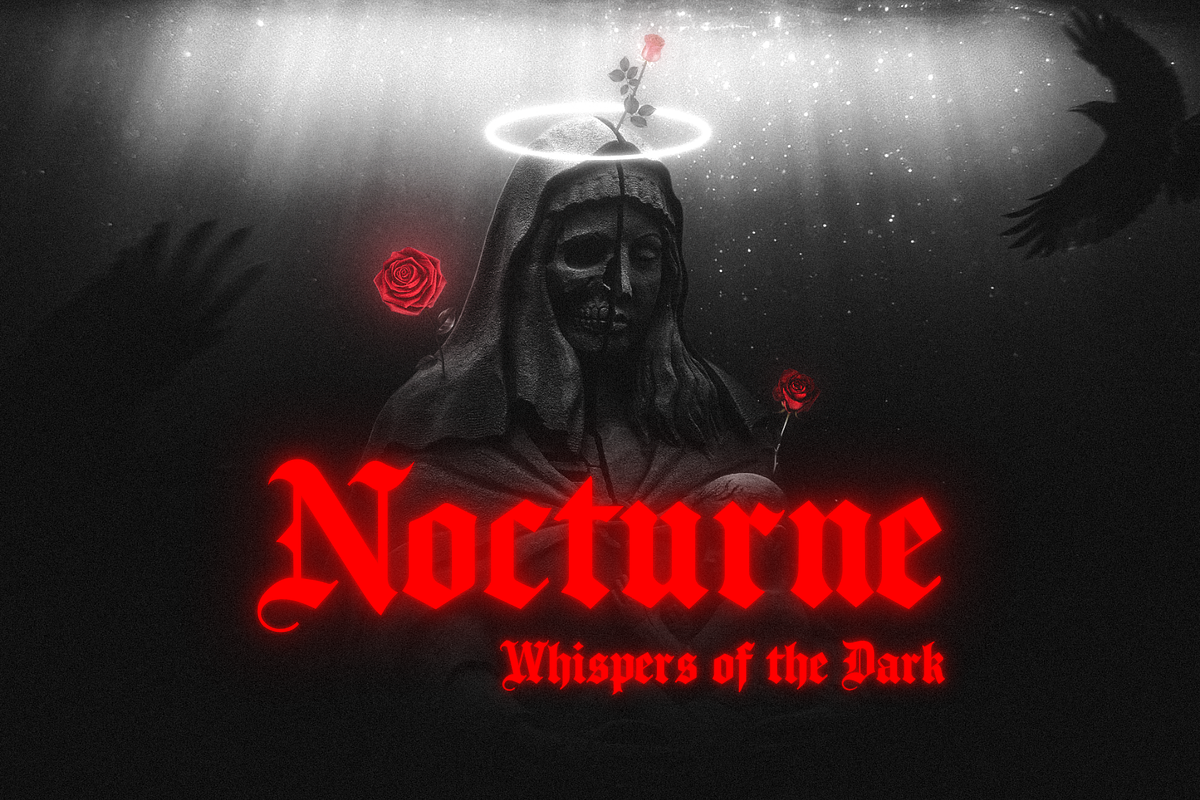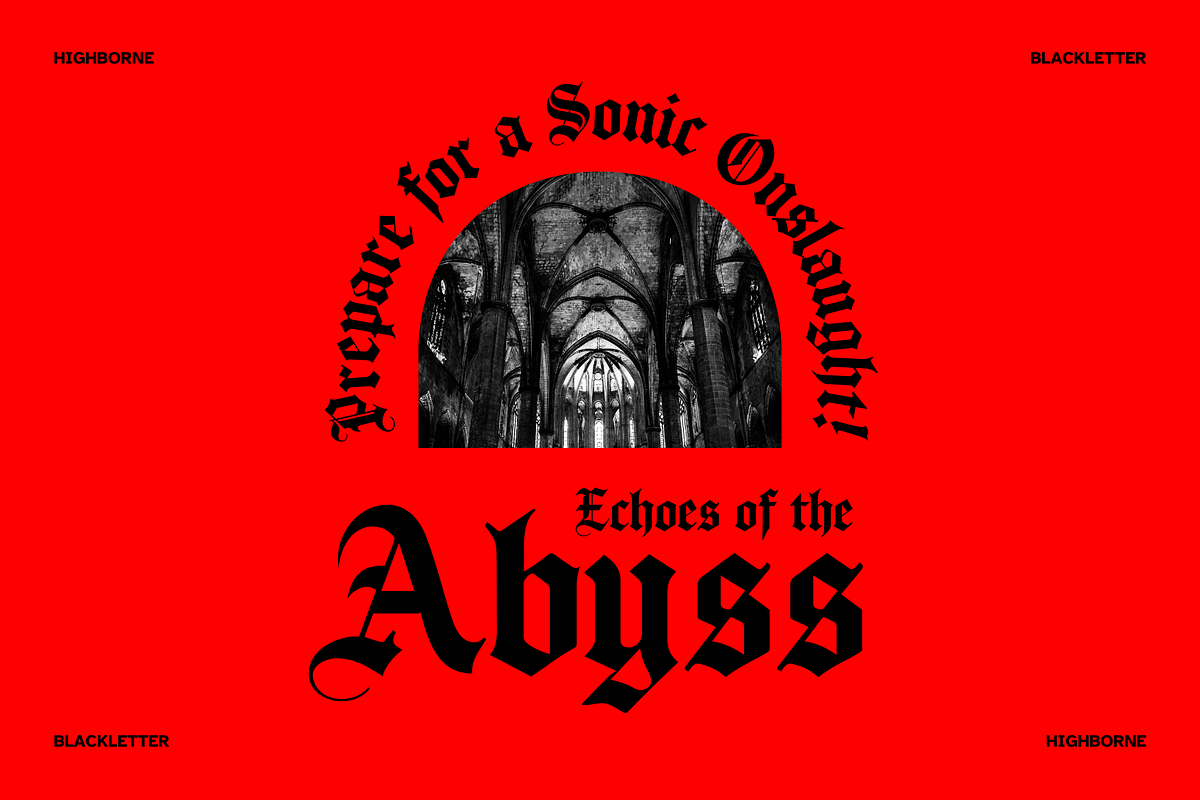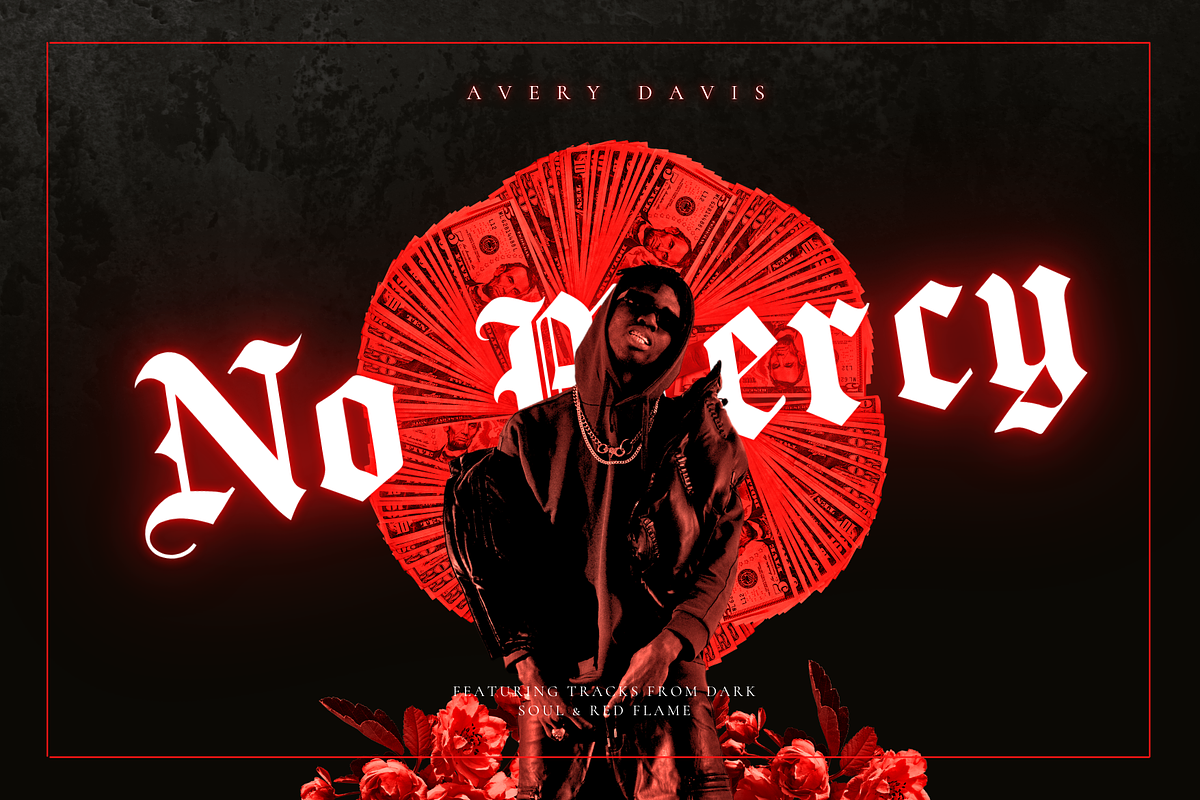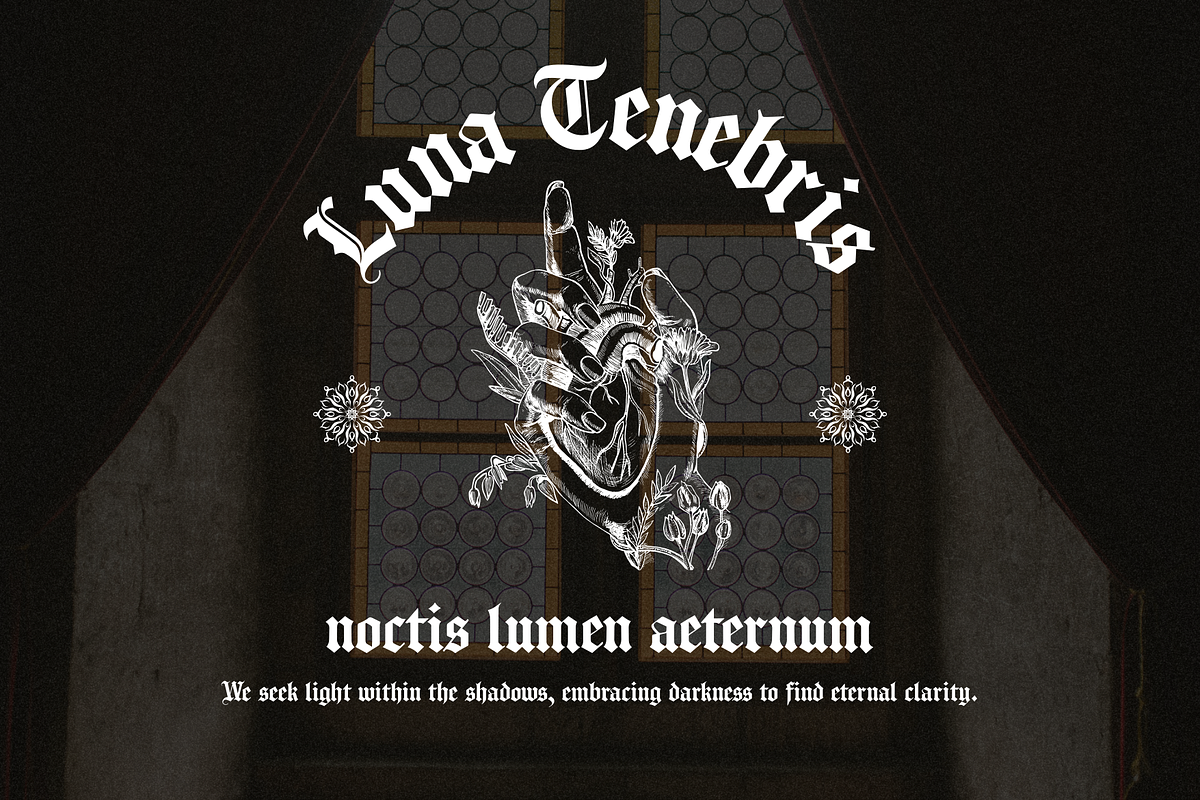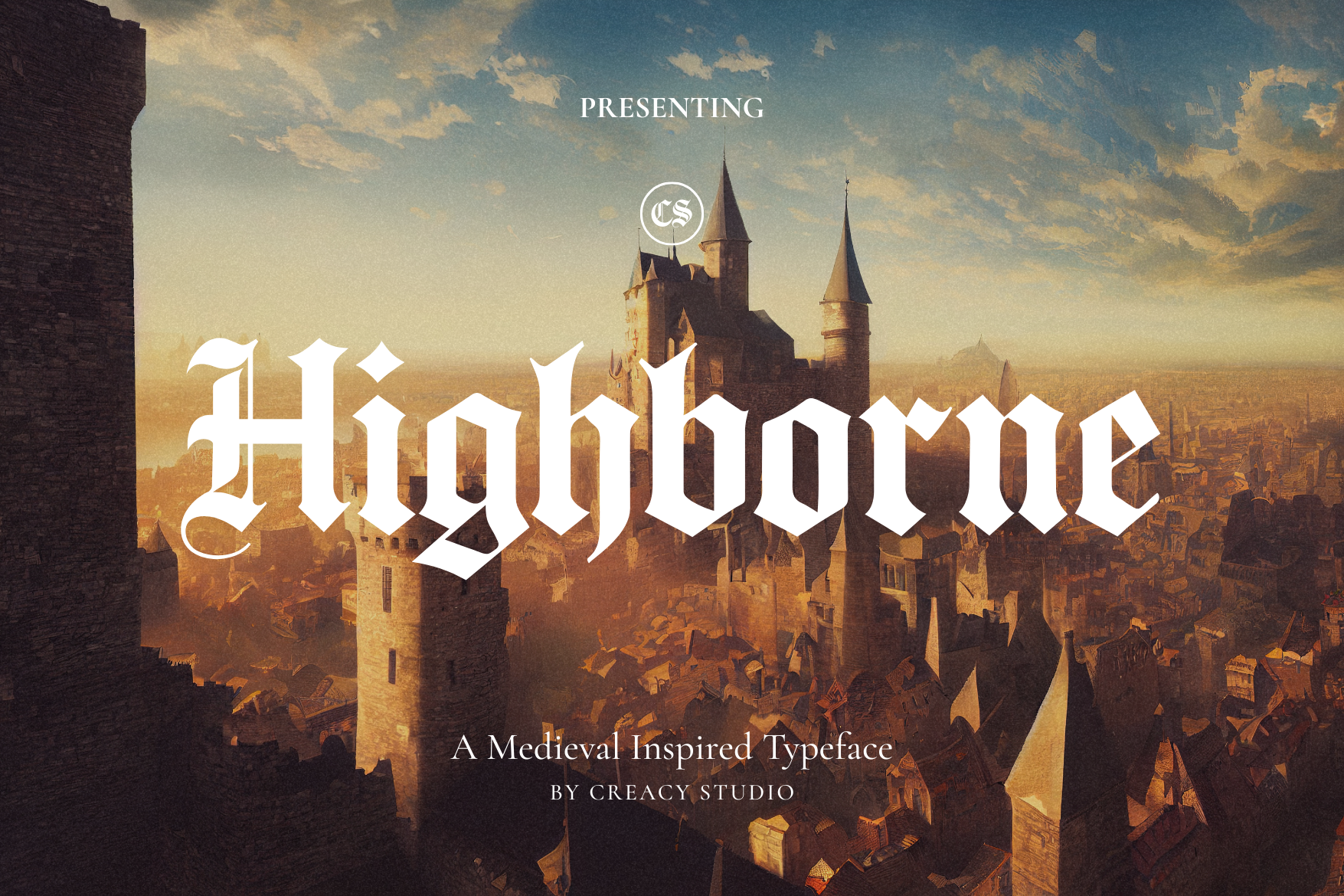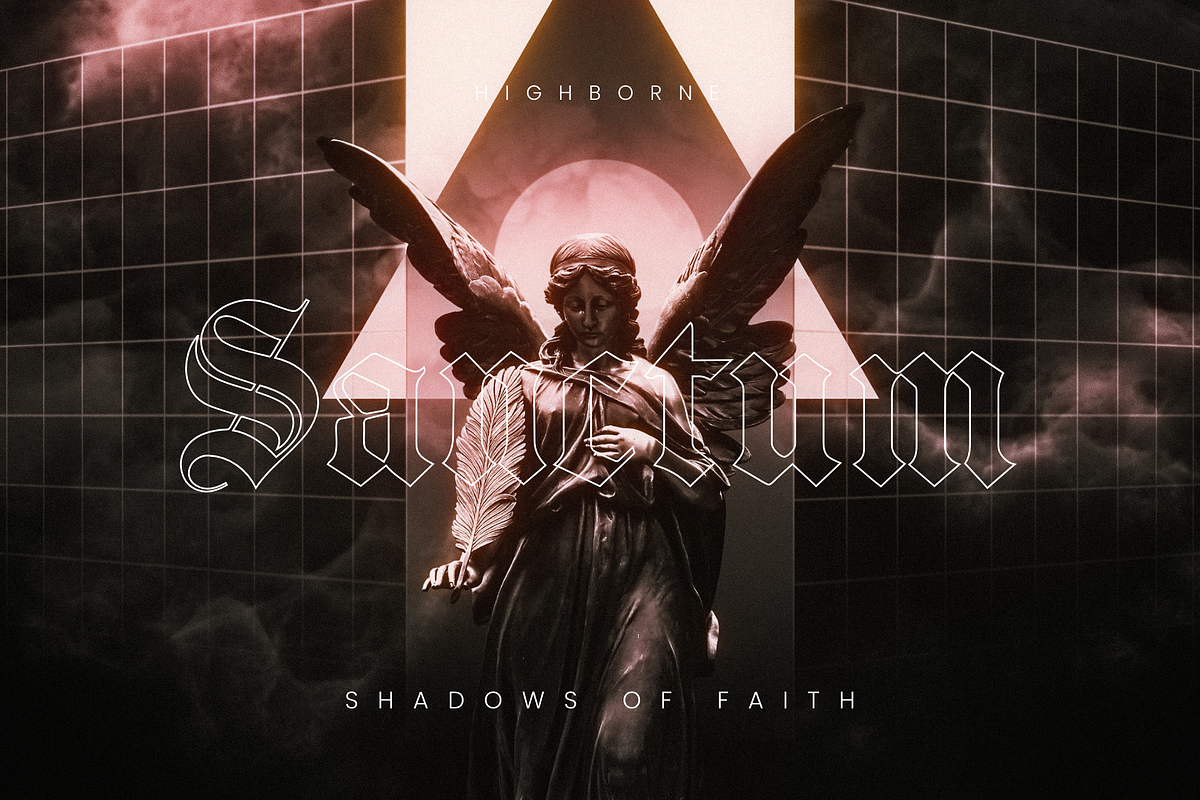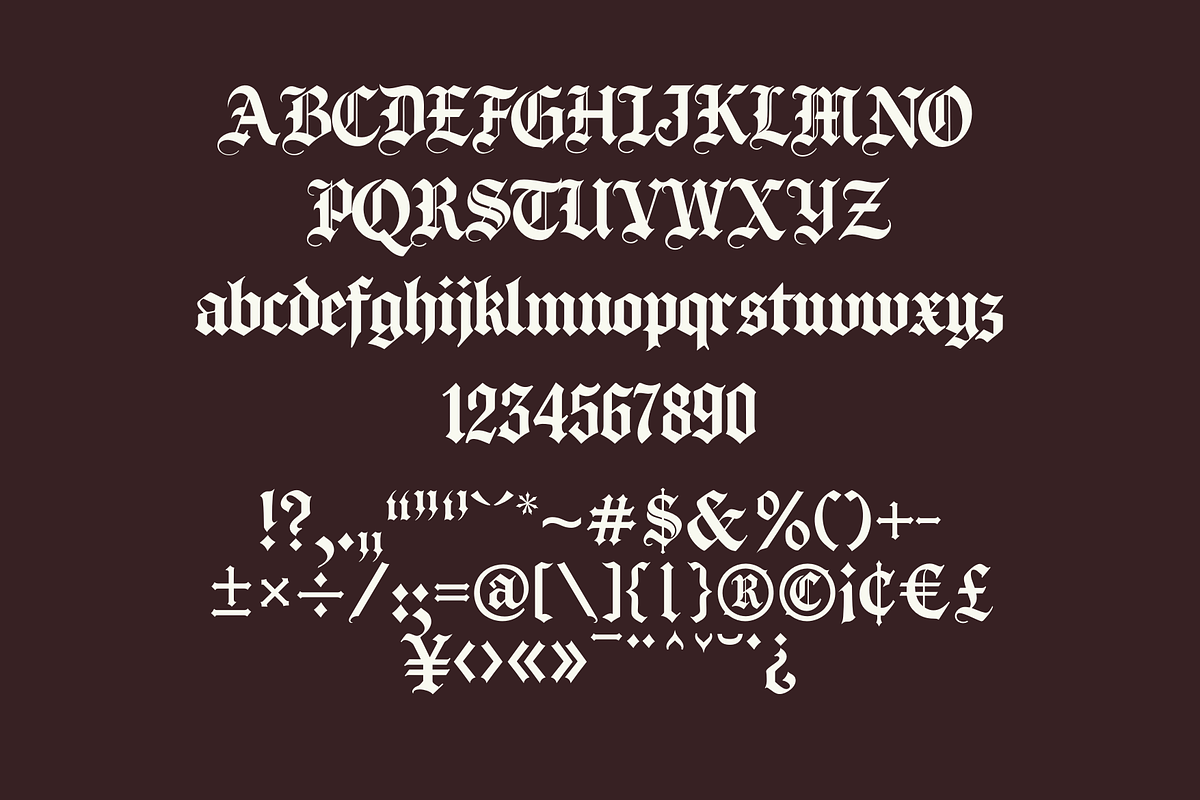
Highborne – Medieval Typeface
Perfect — thanks for sharing all the previews! Step into the world of legends, castles, and timeless oaths with Highborne, a medieval-inspired blackletter typeface crafted to bring bold character and historical drama to your designs.
With sharp ornamental strokes, strong contrast, and authentic gothic details, Highborne channels the essence of medieval manuscripts and heraldic banners while staying versatile for modern creative projects.
Whether you’re designing music covers, dark fantasy posters, gothic branding, book titles, apparel graphics, or cinematic quotes, Highborne adds an aura of mystery and power that instantly captures attention.
- Complete Uppercase & Lowercase
- Alternates & Stylistic Touches for added flair
✦ Perfect For:
- Music & Album Covers (metal, hip-hop, gothic)
- Posters, Flyers & Event Branding
- Dark Fantasy & Medieval Themes
- Book Covers, Titles & Quotes
- Apparel, Merchandise & Packaging
- Logo & Identity for Edgy Brands
Bring a touch of ancient power and gothic elegance into your creative arsenal with Highborne – a typeface that bridges the shadows of the past with the bold statements of today.